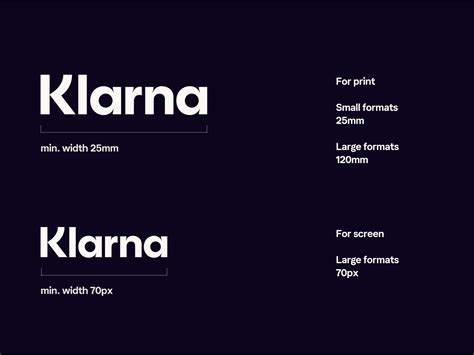
Klarna Font: Download & Usage Guide
Hey guys! Ever wondered about that sleek, modern font Klarna uses in their branding? You know, the one that makes their app and website look so polished and trustworthy? Well, you’re in luck! Today, we’re diving deep into the Klarna font , exploring how you can get your hands on it and how to use it effectively in your own projects. Whether you’re a budding designer, a small business owner, or just someone who appreciates good typography, understanding the fonts behind successful brands like Klarna can be a game-changer. We’ll cover everything from identifying the exact typeface to the nitty-gritty of licensing and implementation. So, buckle up, because we’re about to unlock the secrets of the Klarna aesthetic, one character at a time!
Unveiling the Klarna Font Family
Alright, let’s get straight to the point: what exactly is the Klarna font ? After a bit of digging and with the help of some design sleuths, it’s confirmed that Klarna primarily uses a custom-designed typeface. This isn’t uncommon for large companies that want a unique brand identity. However, the good news is that this custom font is heavily inspired by and shares many characteristics with commercially available fonts. The most prominent and widely recognized font that closely resembles the Klarna typeface is Circular Std . Many designers often use Circular Std as a substitute or a very close approximation when the official Klarna font isn’t accessible or suitable for their needs. Circular Std is a geometric sans-serif typeface designed by Llama type. It’s known for its clean lines, excellent readability, and a friendly yet professional vibe, which perfectly aligns with Klarna’s brand image. It boasts a wide range of weights and styles, from thin to black, making it incredibly versatile for various design applications, from headlines to body text. When you look at Klarna’s marketing materials, website, and app interface, you’ll see this distinctive font used consistently, reinforcing their brand’s modern, approachable, and reliable personality. Understanding that Circular Std is the closest publicly available option is key if you’re looking to emulate that Klarna look and feel. We’ll discuss where to find and how to license Circular Std a bit later, but for now, it’s great to know there’s a fantastic, accessible option out there that captures the essence of the Klarna brand.
Why Brands Like Klarna Invest in Custom Typography
So, why do big players like Klarna go the extra mile to create or heavily customize their fonts? There are several compelling reasons, guys. Brand recognition is a massive one. A unique font is like a signature; it makes a brand instantly recognizable. Think about Coca-Cola’s script or Google’s custom sans-serif. You see it, and you know who it is. For Klarna, using a distinct font helps build a strong, cohesive visual identity across all their platforms. It differentiates them from competitors and makes their communications feel more authentic and less generic. Consistency is another huge factor. A custom font ensures that the brand’s look and feel remain uniform, whether it’s on a billboard, a mobile app, or a social media post. This consistency builds trust and professionalism. When a brand looks polished and put-together, customers perceive it as more reliable and established. Control is also a major benefit. By having a custom font, Klarna has complete control over its usage. They can dictate specific weights, kerning (the spacing between letters), and other typographic details to ensure their message is always delivered exactly as intended. This level of control is crucial for maintaining brand integrity and conveying specific emotions or tones. Lastly, unique aesthetic plays a role. Klarna aims for a modern, clean, and approachable image. Their chosen typography, closely mirrored by Circular Std, helps achieve this. It’s legible, friendly, and feels contemporary, which is perfect for a fintech company dealing with financial transactions and customer trust. While you might not be able to download the exact Klarna font without a specific license or agreement, understanding these reasons helps appreciate why brands invest so much in their visual language. It’s not just about making things look pretty; it’s a strategic business decision.
Getting Your Hands on Circular Std
Implementing the Klarna Font in Your Designs
Alright, you’ve got the Klarna font (or its close cousin, Circular Std) and you understand the licensing. Now comes the fun part: actually using it in your designs! The key to implementing any font effectively, especially one that defines a brand’s aesthetic like Klarna’s, is consistency and thoughtful application . Don’t just use it everywhere randomly, guys. Think about how and where it will have the most impact. Klarna uses its typography with great precision. You’ll notice it in their clear, concise headlines, their readable body text, and the distinct call-to-action buttons. When using Circular Std (or the actual Klarna font if you have access), pay attention to the hierarchy . Use bolder weights or larger sizes for headlines and key information to grab attention. Use lighter weights or smaller sizes for supporting text, ensuring it remains legible. Readability is paramount, especially if you’re designing interfaces or content that people need to read for extended periods. Circular Std excels here due to its clean, geometric nature. Ensure adequate line spacing (leading) and letter spacing (tracking) to prevent text from feeling cramped or overly spaced out. Klarna’s design language is generally minimalist and clean, so let that guide your typographic choices. Avoid using too many different weights or styles of the font in a single design; stick to 2-3 at most to maintain a cohesive look. For web design, if you’ve purchased a web font license, you’ll typically receive instructions on how to embed the font into your site using CSS. This usually involves uploading the font files to your server and then referencing them in your stylesheet. For example, you might use @font-face rules in CSS to define the font and then apply it to specific HTML elements. Similarly, for app design, you’ll integrate the font files according to the platform’s guidelines (iOS or Android) and your development environment. The goal is to create a seamless and professional user experience that mirrors the clarity and trustworthiness Klarna projects. Think about pairing Circular Std with other complementary fonts if needed, but tread carefully. A simple, clean sans-serif often pairs well with itself or a subtle serif for contrast, but always prioritize legibility and brand alignment. Remember, the font is a tool to convey your message effectively; use it wisely!
Tips for Typographic Excellence
To really nail that professional look, similar to how Klarna uses its Klarna font , here are a few extra tips for typographic excellence, guys. First off, master the basics of hierarchy . This means making it obvious to your reader what’s most important. Use font size, weight (bold, regular, light), and color to differentiate between headings, subheadings, body text, and captions. Don’t make everything look the same size and weight! Second, pay attention to whitespace . Yes, the empty space around your text is just as important as the text itself. Generous whitespace makes your design feel clean, uncluttered, and easier to digest. It helps guide the reader’s eye and prevents visual fatigue. Klarna’s designs are a great example of using whitespace effectively. Third, consider your line length . Long lines of text are hard to read because the reader’s eye has to travel too far across the page. Aim for lines that are roughly 45-75 characters long for optimal readability in most contexts. Adjust your font size and container width accordingly. Fourth, choose your weights wisely . While Circular Std (or any font family) offers many weights, resist the urge to use them all. Typically, sticking to two or three complementary weights (like Light, Regular, and Bold, or Medium and Black) is sufficient for creating visual interest and structure without looking chaotic. Fifth, kerning and tracking matter . Kerning is the adjustment of space between specific pairs of letters (like ‘AV’ or ‘To’) that might otherwise look awkward. Tracking is the uniform adjustment of space between letters across a word or sentence. Most design software has tools for this, and paying attention to these details can make a huge difference in the polish of your typography. Finally, test, test, test! Look at your design on different screen sizes and even print it out if possible. Read the text aloud. Does it flow well? Is anything awkward? Getting a second pair of eyes on it can also be incredibly helpful. By applying these tips, you’ll be well on your way to creating designs that are not only beautiful but also highly functional and professional, much like the branding you see from Klarna.
Conclusion: Elevating Your Brand with the Right Typography
So there you have it, folks! We’ve explored the world of the Klarna font , identifying Circular Std as its closest and most accessible counterpart. We’ve discussed why brands invest in unique typography, delved into the essential aspects of font licensing, and shared practical tips for implementing these fonts effectively in your own design projects. Remember, the font you choose is more than just a collection of letters; it’s a fundamental part of your brand’s identity and communication strategy. It influences how your message is perceived, how trustworthy you appear, and how user-friendly your interfaces are. Klarna’s success in establishing a clear, modern, and reliable brand image is, in no small part, thanks to their deliberate and consistent use of typography. By understanding and applying the principles we’ve discussed – from selecting the right typeface and respecting licensing to mastering hierarchy and whitespace – you can significantly elevate your own brand’s visual presence. Whether you’re a startup trying to make a name for yourself or an established business looking to refresh your image, investing time and thought into your typography is crucial. Don’t underestimate the power of a well-chosen font! So, go forth, explore Circular Std or other high-quality typefaces, and use them wisely to create designs that are both aesthetically pleasing and strategically effective. Happy designing, guys!